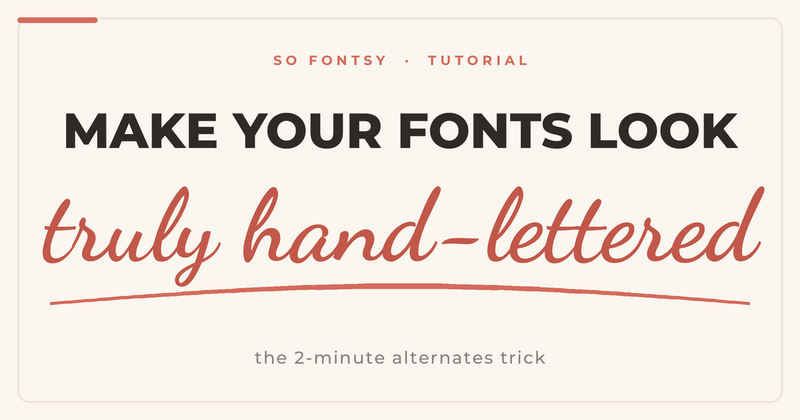
How to Make Script Fonts Look Truly Hand-Lettered
Ever notice how some "handwriting" fonts still look... typed? The giveaway is that every letter is identical, and real handwriting never repeats itself the exact same way twice. Here's how to fix that in about two minutes, using any script font from the Cute Handwriting Bundle.
Why "handwriting" fonts often look fake
When you type a word, a font places the exact same shape every time a letter appears. Two lowercase L's side by side look like perfect twins. Handwriting doesn't work that way. No one writes the same letter identically twice, and that tiny bit of variation is what your eye reads as "real." The trick below reintroduces it.
Step 1: Start with a font that has alternates
This only works if your font includes alternate characters and ligatures, which are extra versions of each letter built into the font file. Every font in the Cute Handwriting Bundle is made with these, so you have options for each letter. Type your word or phrase normally to start.
Step 2: Break up the repeats
Look for any letter that appears more than once close together: double L's, repeated E's, or a name with two of the same letter. Those repeats are what make a design read as "typed," and they're the letters you'll swap.
Step 3: Swap in the alternates
How you access alternates depends on your software:
- Silhouette Studio (Business Edition): Open the Glyphs panel, highlight the letter, and choose a different version from the alternates shown.
- Cricut Design Space: Use the ungroup-to-letters option, then substitute an alternate character.
- Canva or Adobe Illustrator: Turn on Stylistic Alternates or open the Glyphs panel, then click the letter to cycle through options.
Step 4: Connect the letters
Nudge letters slightly closer so the connecting strokes overlap and flow like a continuous pen stroke. This single adjustment sells the whole hand-lettered look, especially for signs and shirts.
Step 5: Add a natural baseline wobble (optional)
For extra authenticity, move a couple of letters up or down by a hair. Handwriting doesn't sit perfectly on a line, and neither should yours. Keep it subtle.
That's it
Same font, but now it reads as genuinely hand-lettered instead of computer-generated. The key is starting with fonts built with the alternates that make this possible.